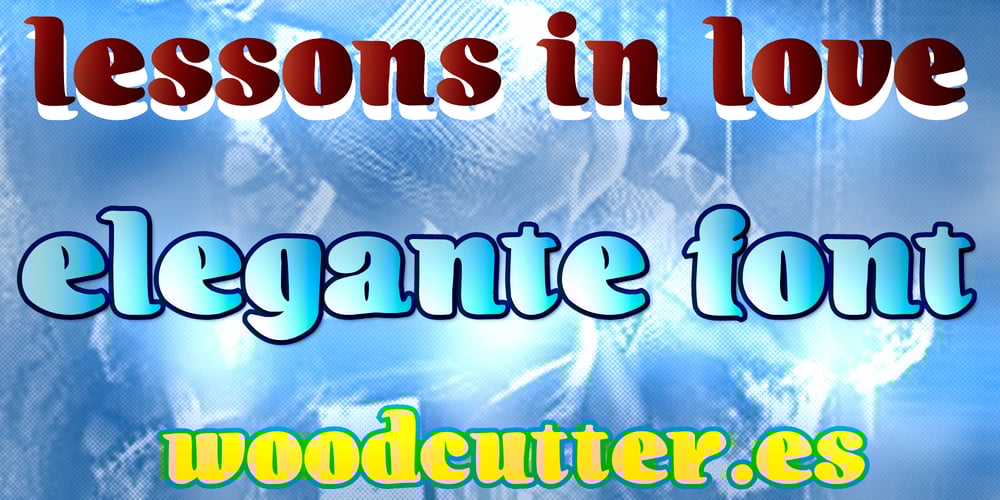
Lessons in Love Font Family was designed by Jordi Manero and published by Woodcutter. Lessons in Love contains 1 styles and family package options. “Lessons in Love” is a retro-style font with fine, accented lowercase letters, subtly rounded. This typeface evokes the elegance and charm of bygone eras, ideal for designs seeking a nostalgic and romantic touch. Its delicate shapes and careful design make “Lessons in Love” perfect for invitations, greeting cards, and creative projects that require a soft and sophisticated look. Add a vintage and sweet vibe to your creations with this unique font.